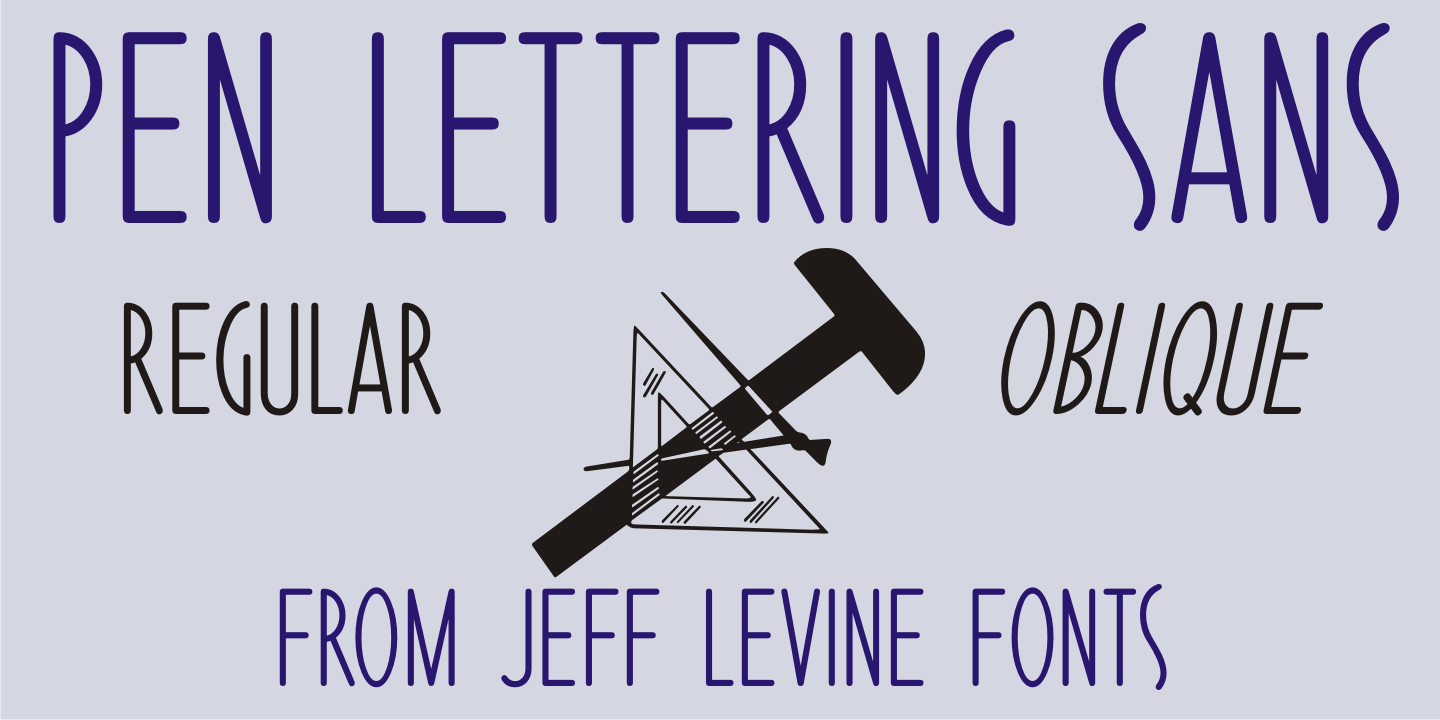
The Pen Lettering Sans JNL Font is an excellent choice for designs that aim for a clean, handcrafted, and distinctly personal aesthetic, reminiscent of a neat, everyday handwriting with a friendly touch. Imagine it gracing the labels of artisanal products, adding an authentic and inviting feel to a small business's branding, or bringing a warm, approachable vibe to a blog's header. It's also perfectly suited for casual invitations, charming greeting cards, creative presentations, and any project where you want to convey a sense of sincerity, individuality, and a unique, artistic flair. Its often clear forms, subtle imperfections, and approachable appearance make it ideal for conveying warmth and a cheerful spirit.
What makes the Pen Lettering Sans JNL Font so exciting is its ability to instantly infuse a design with a feeling of authentic human touch and creative freedom. It frequently features a consistent, yet slightly varied stroke, mimicking genuine penmanship, making it feel organic and relatable. This font has a casual and distinctive personality that can instantly elevate your design, making it feel both quaint and expressively artistic. It’s designed to capture attention with its unassuming beauty, ensuring your message is not just seen, but felt with a sense of delightful authenticity.
The Pen Lettering Sans JNL Font family typically might be offered in a single, impactful weight to maximize its unique hand-drawn effect, though some variations might include stylistic alternates or unique ligatures that enhance its handwritten appeal. Its primary focus is usually on its distinctive visual impact rather than extensive weight ranges. These variations empower designers to create a truly inviting and memorable display, ensuring the Pen Lettering Sans JNL Font Free Download can adapt to a wide array of projects while maintaining its signature, charmingly informal style.